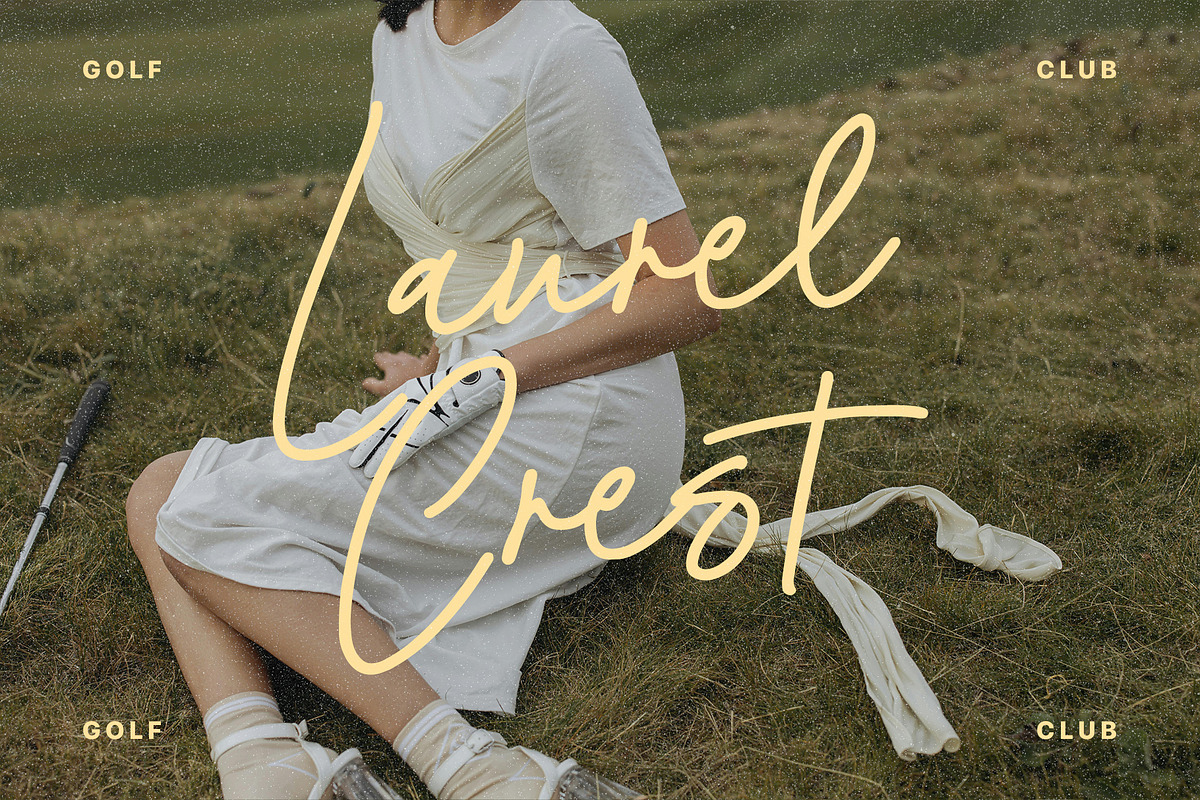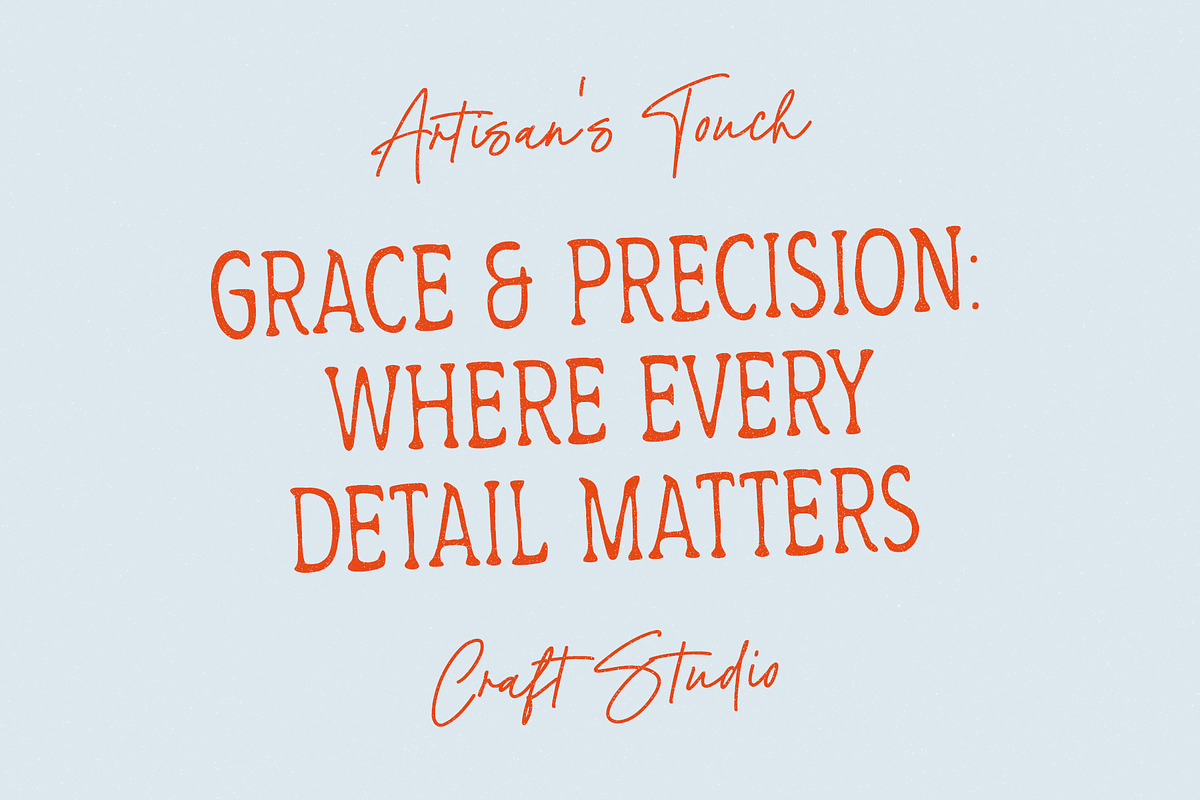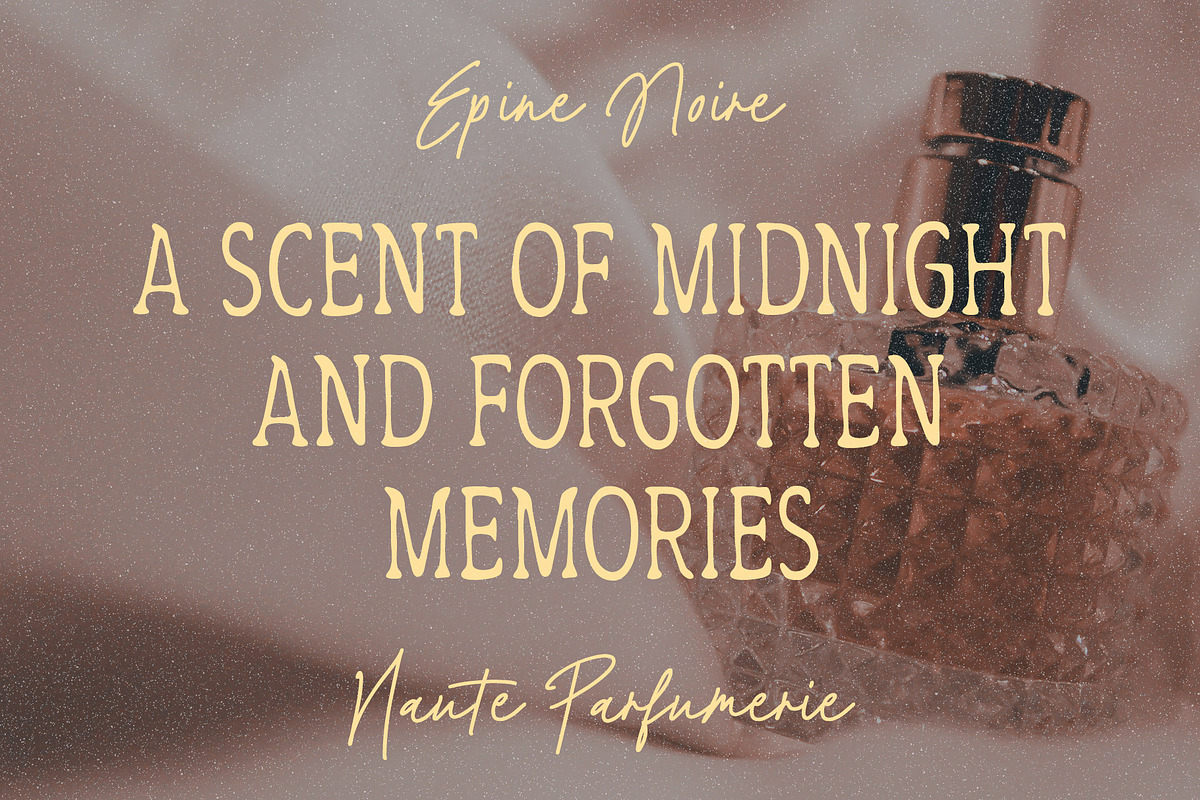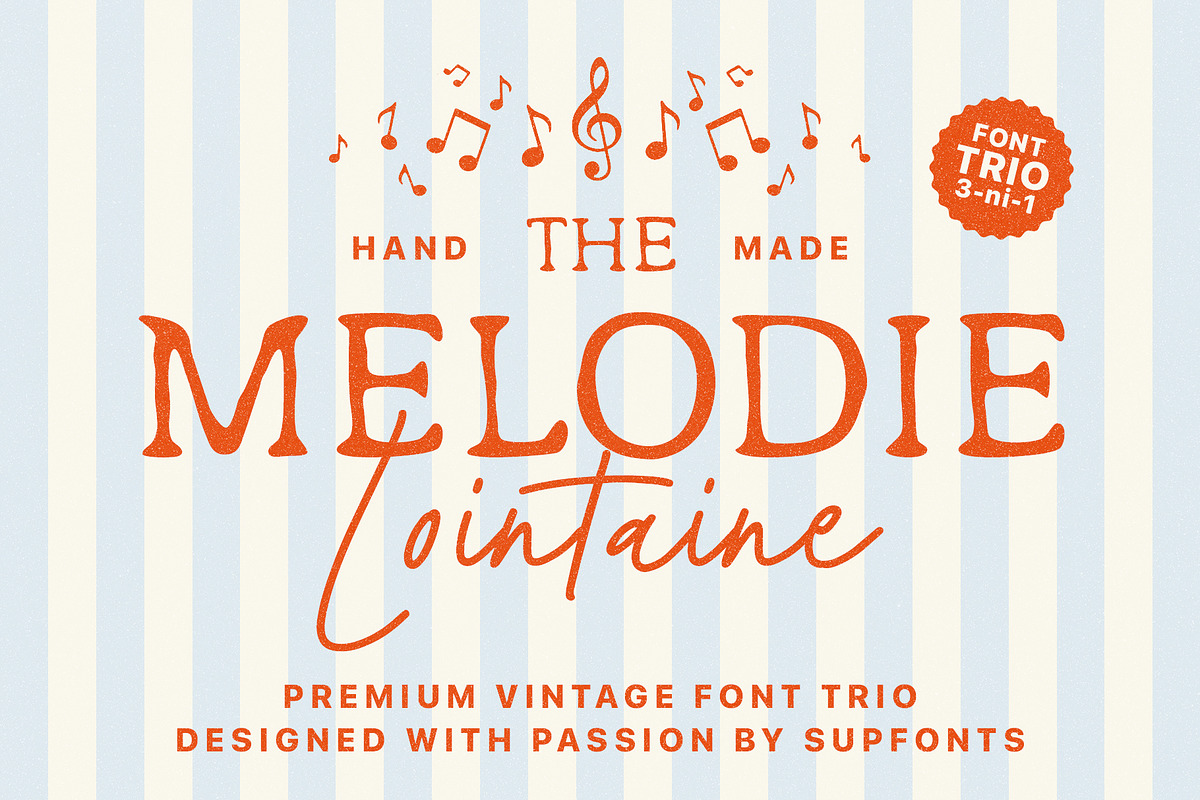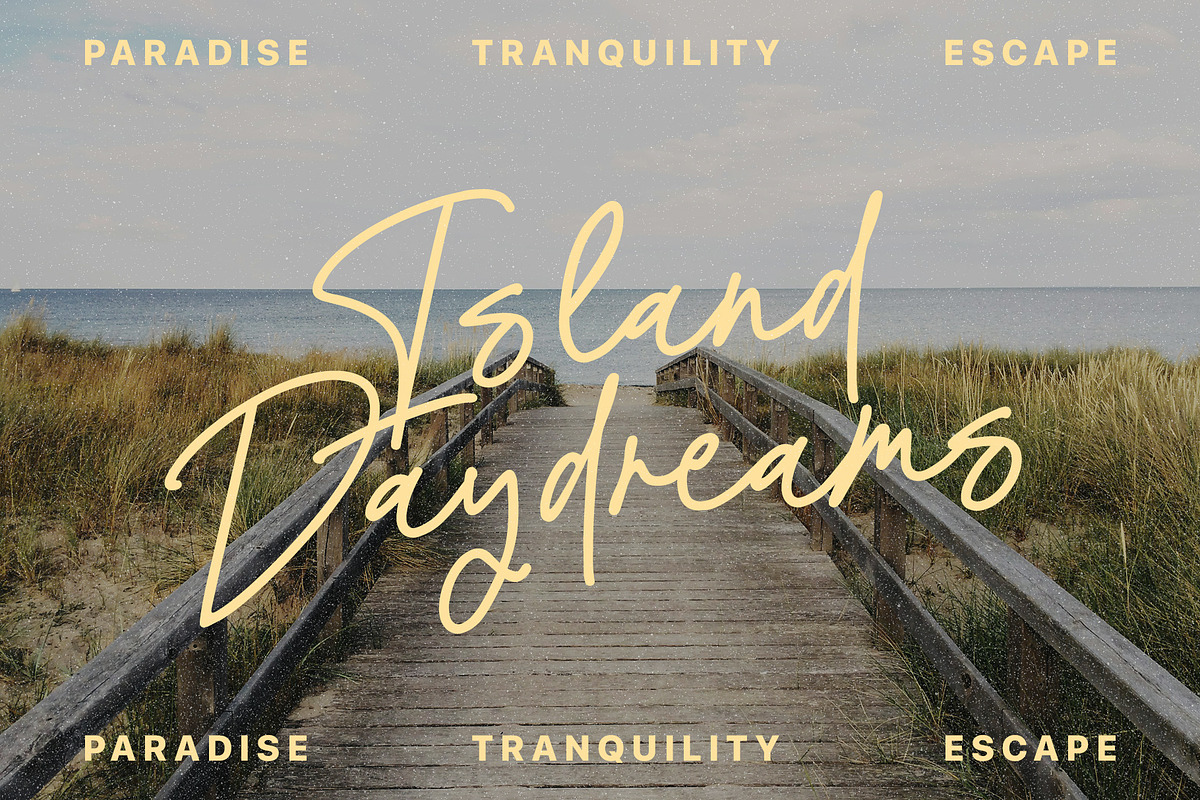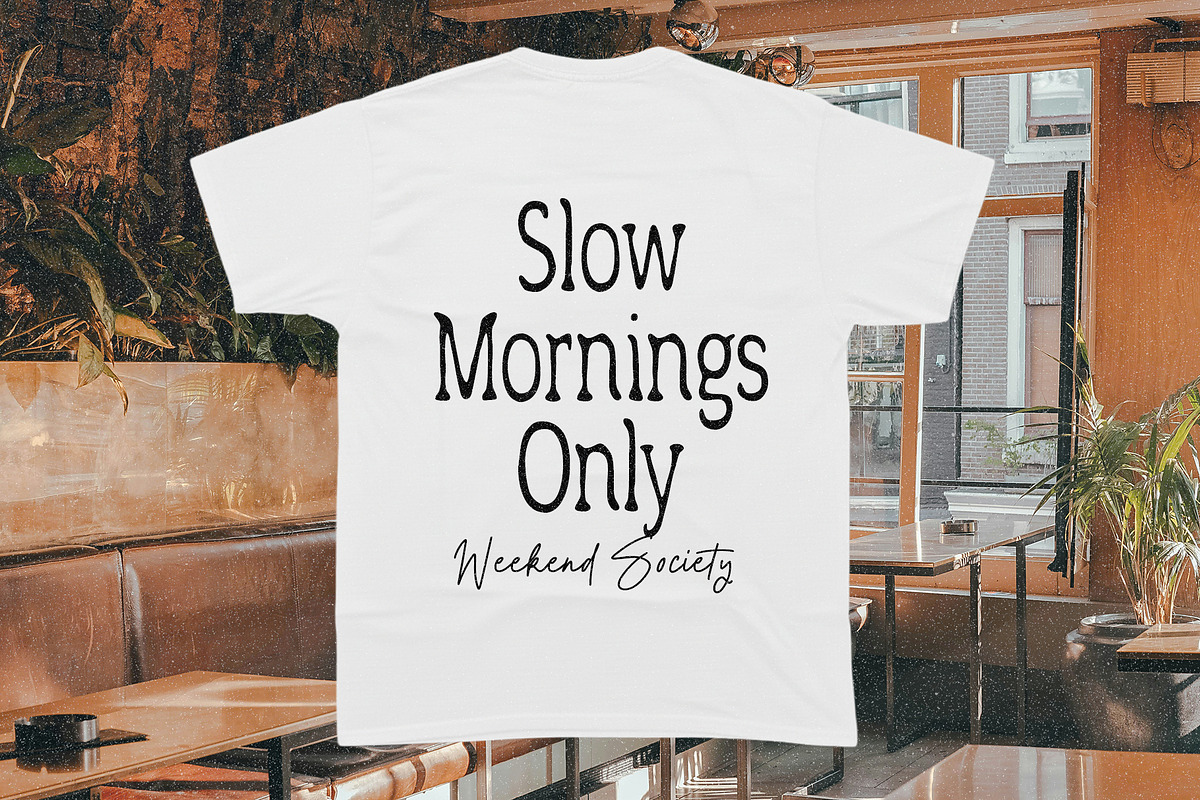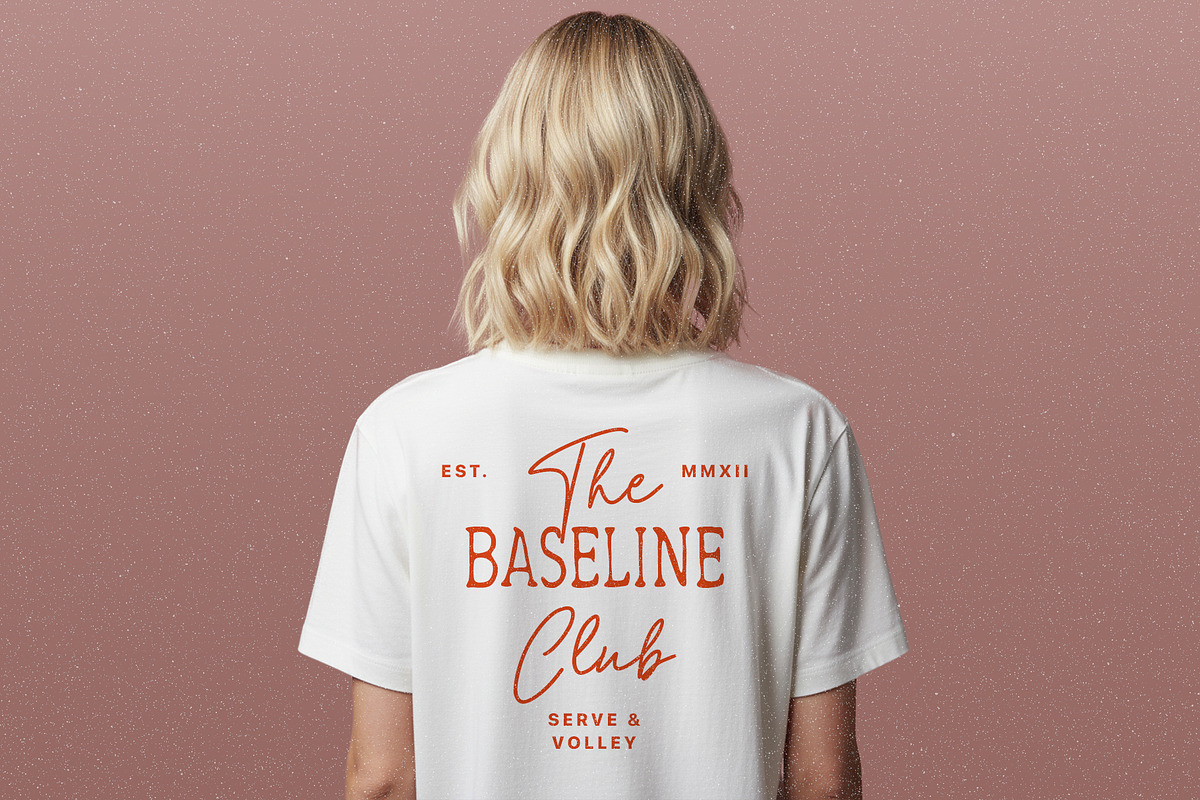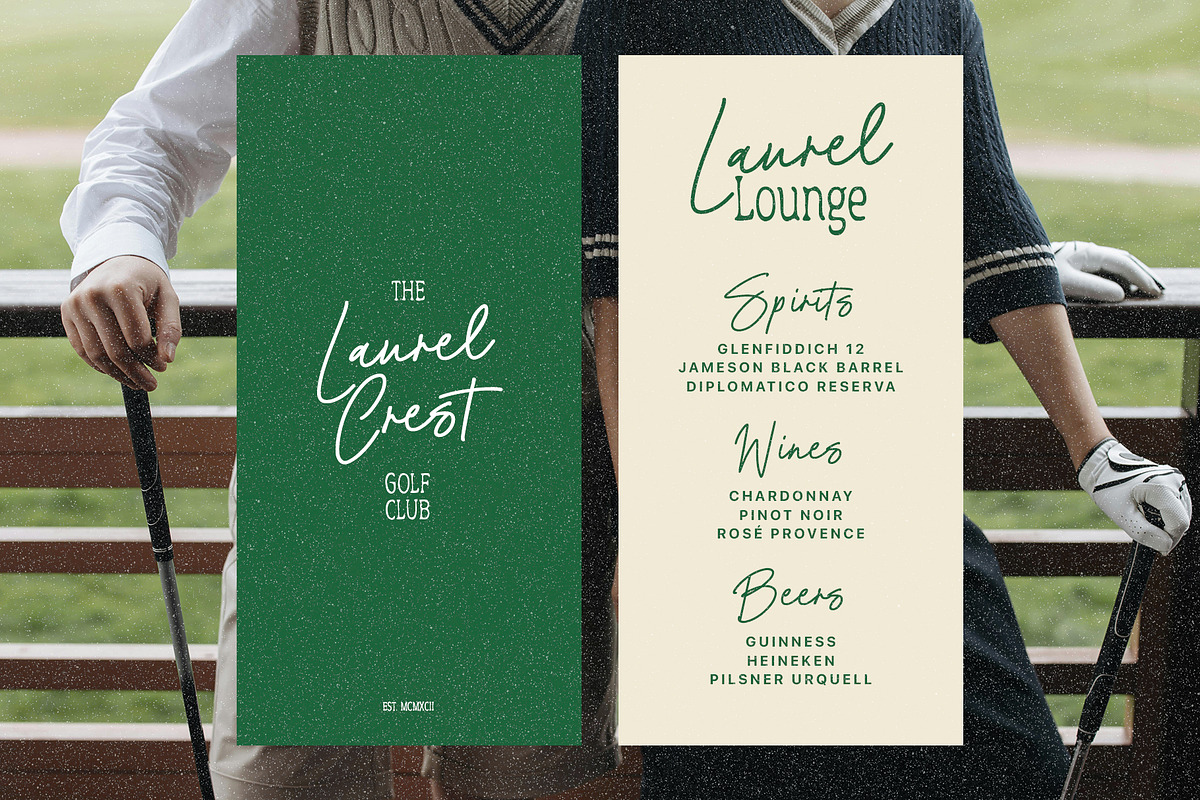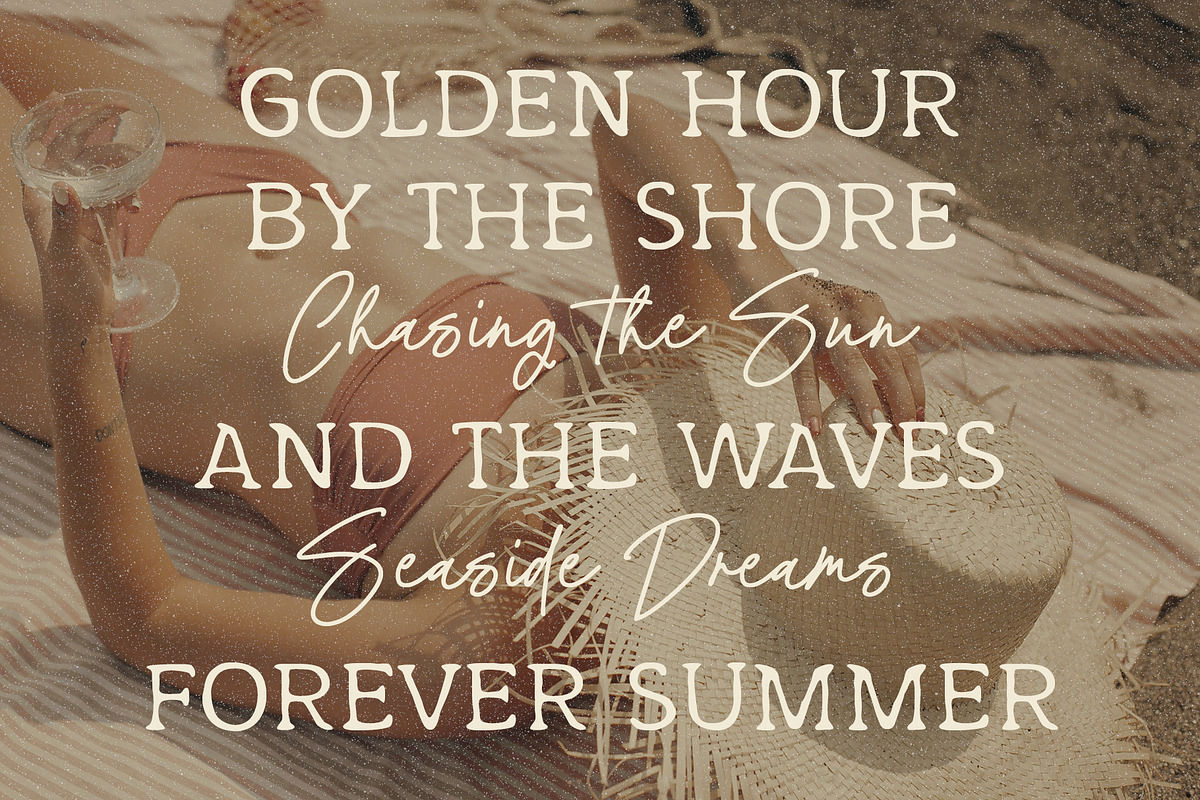
Melodie Lointaine Trio
Melodie Lointaine is a charming vintage-inspired font trio that blends elegance and playfulness. It includes a bold serif, a soft low-contrast serif, and a flowing script — perfect for creating timeless logos, packaging, posters, or editorial designs. Each style pairs beautifully with the others, bringing warmth and character to your work.
- Script font
- Serif font
- Short Serif font